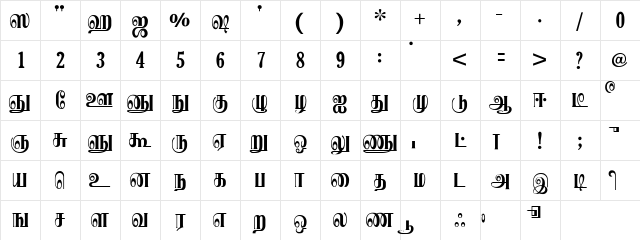
Sapphire Regular Font Preview
Sapphire Regular
Sapphire Regular Font Details
Design Context for Sapphire Typeface
Sapphire takes a measured approach to typography — its balanced proportions and neutral character make it a reliable workhorse for both digital and print work.